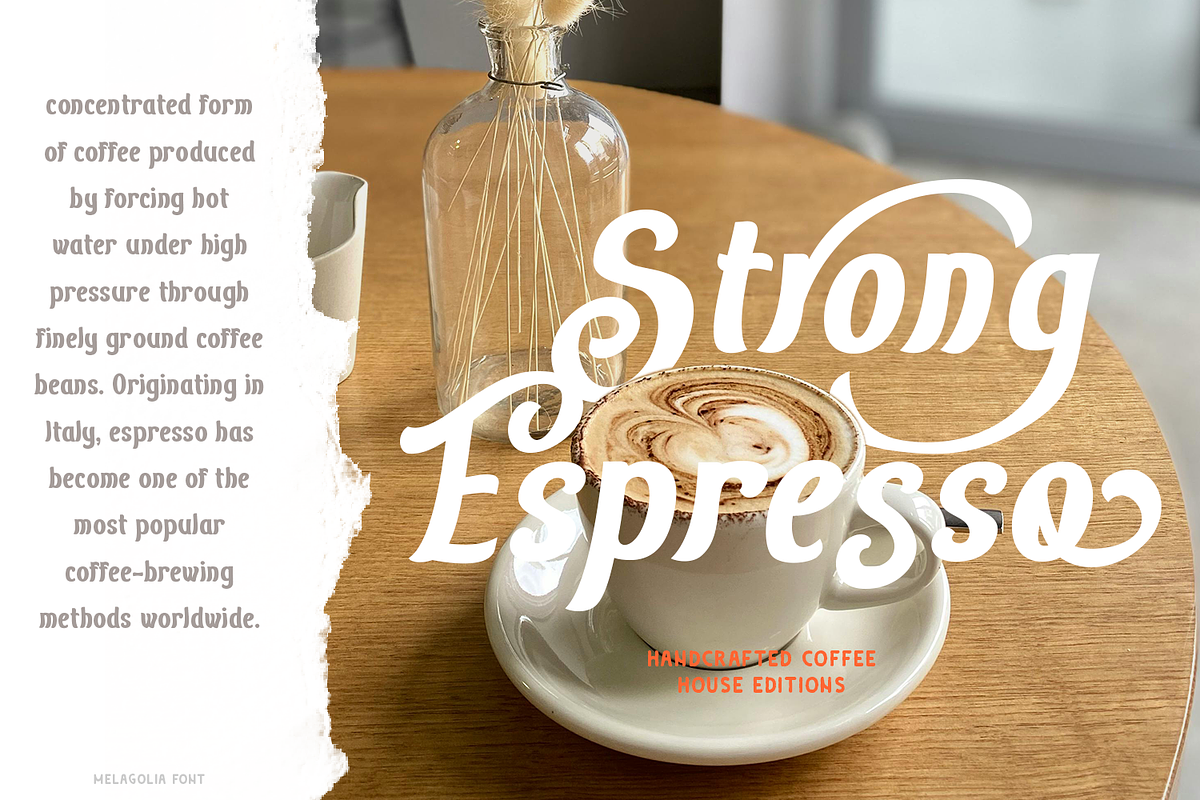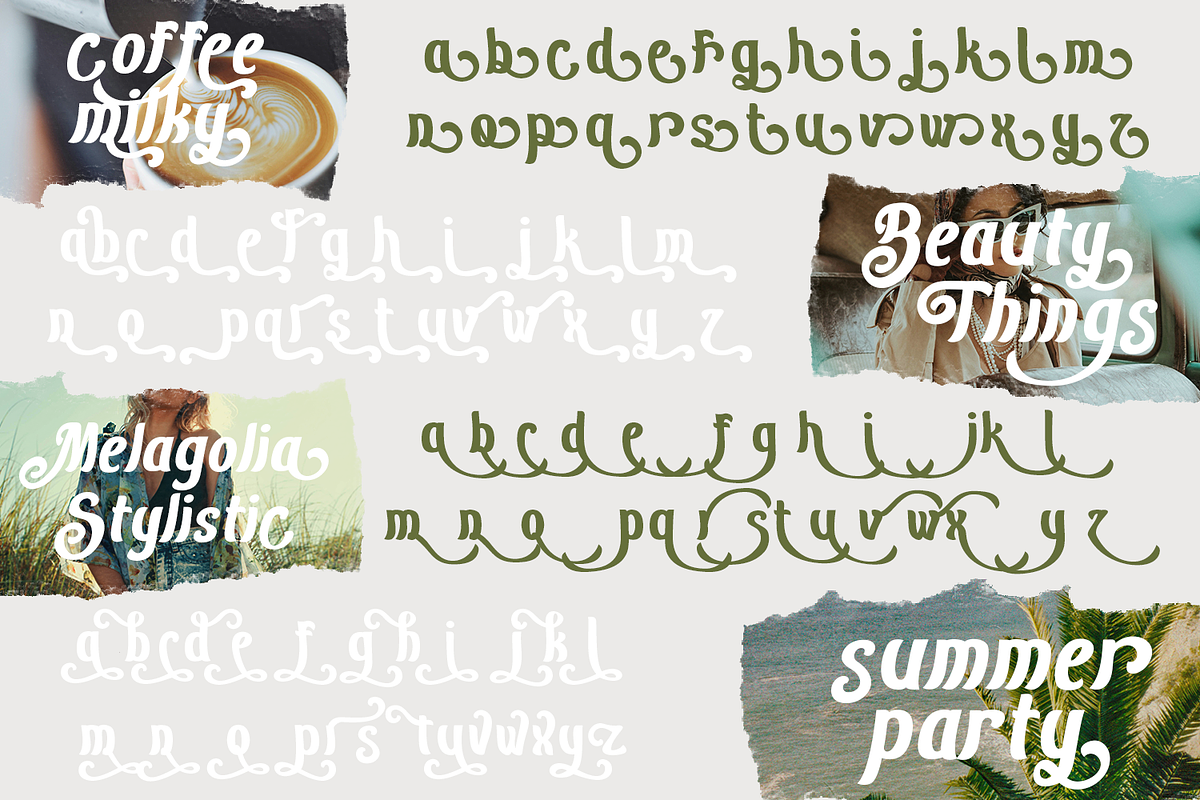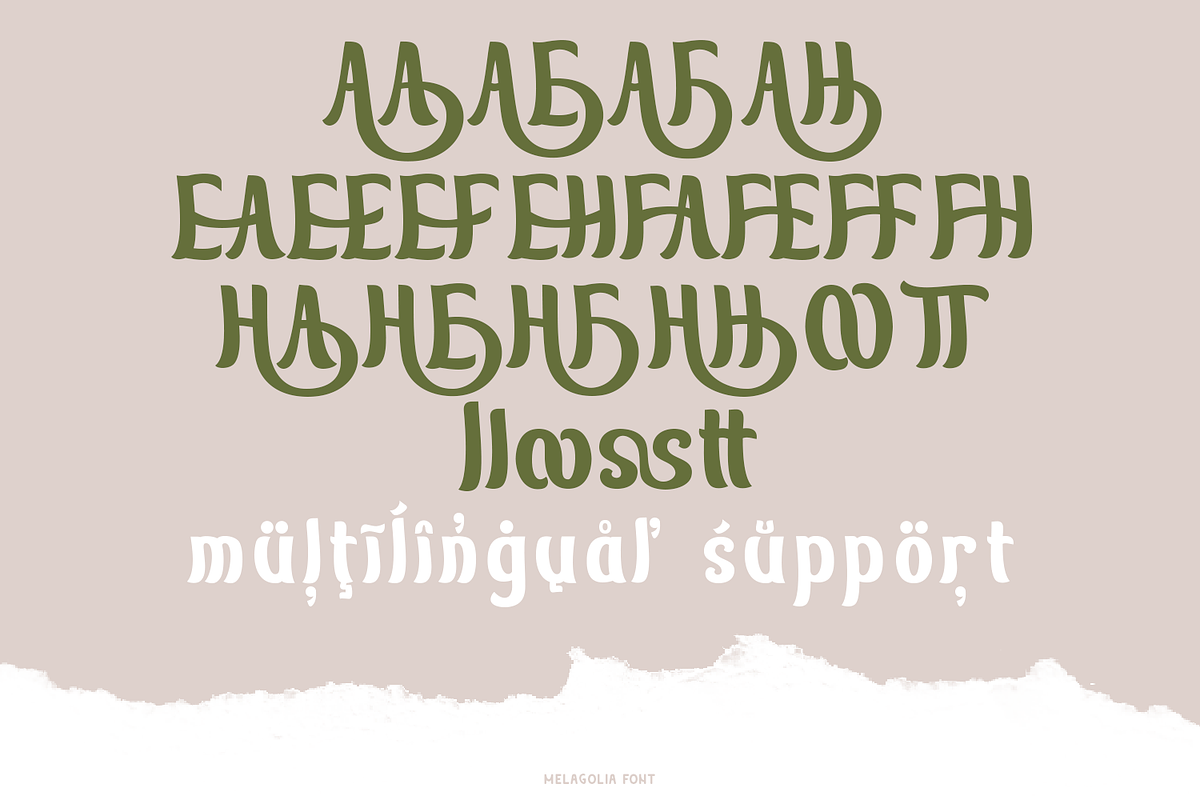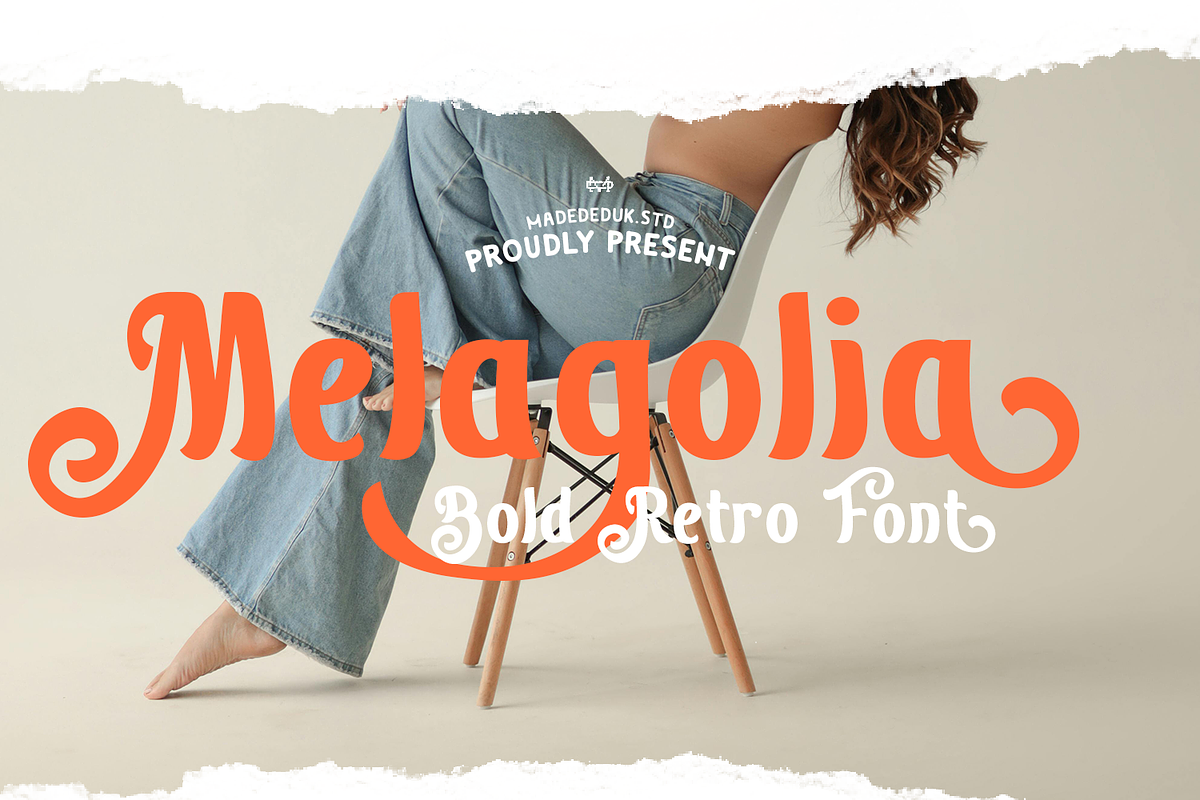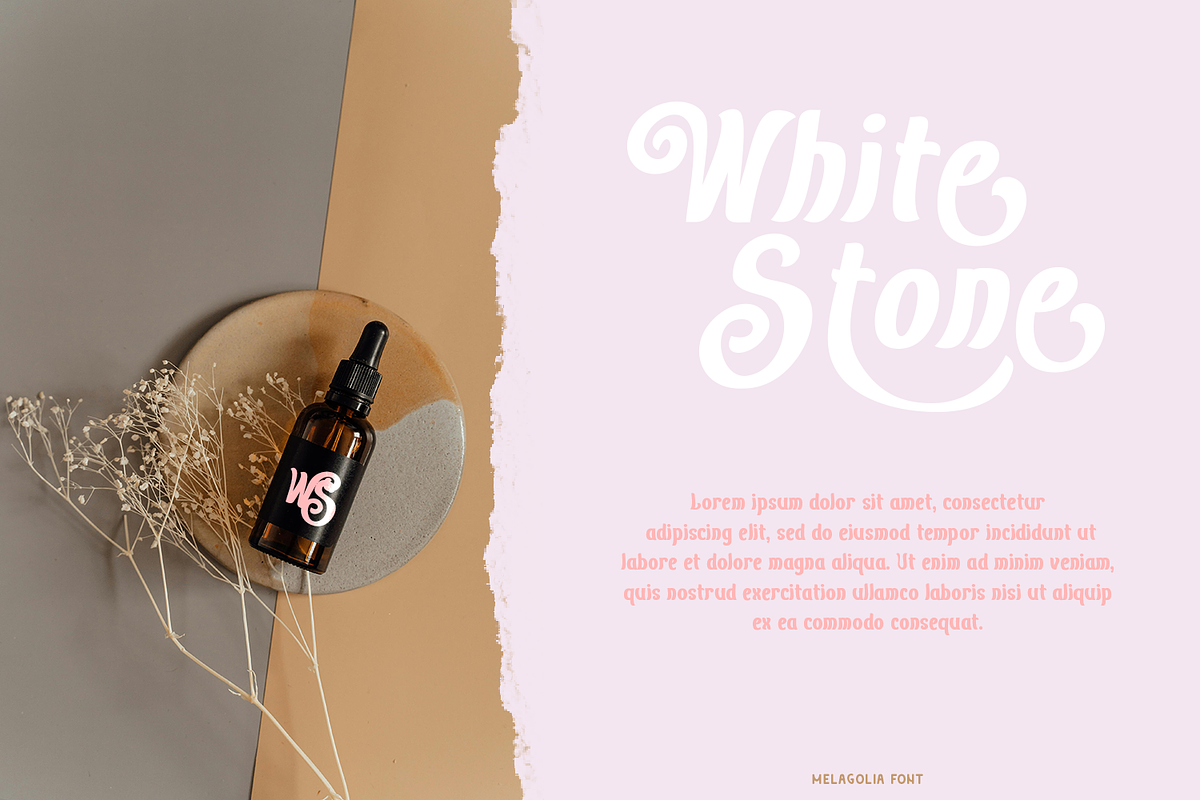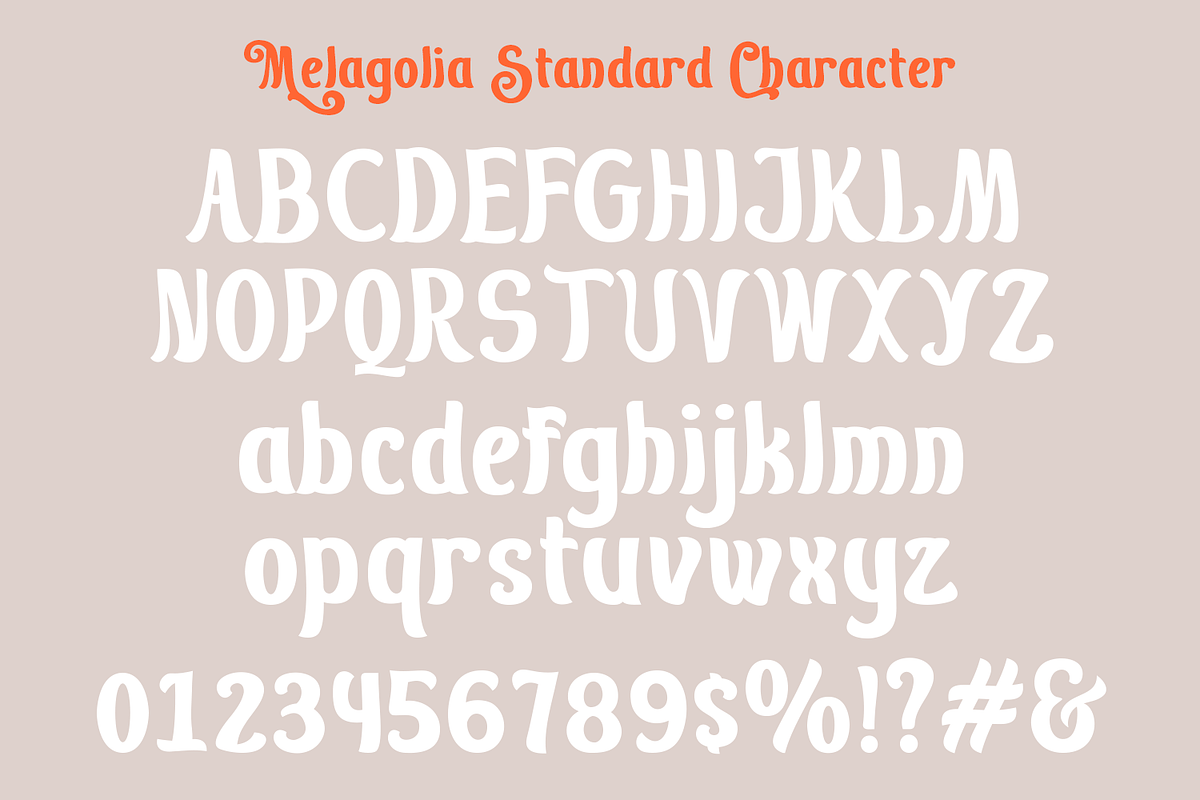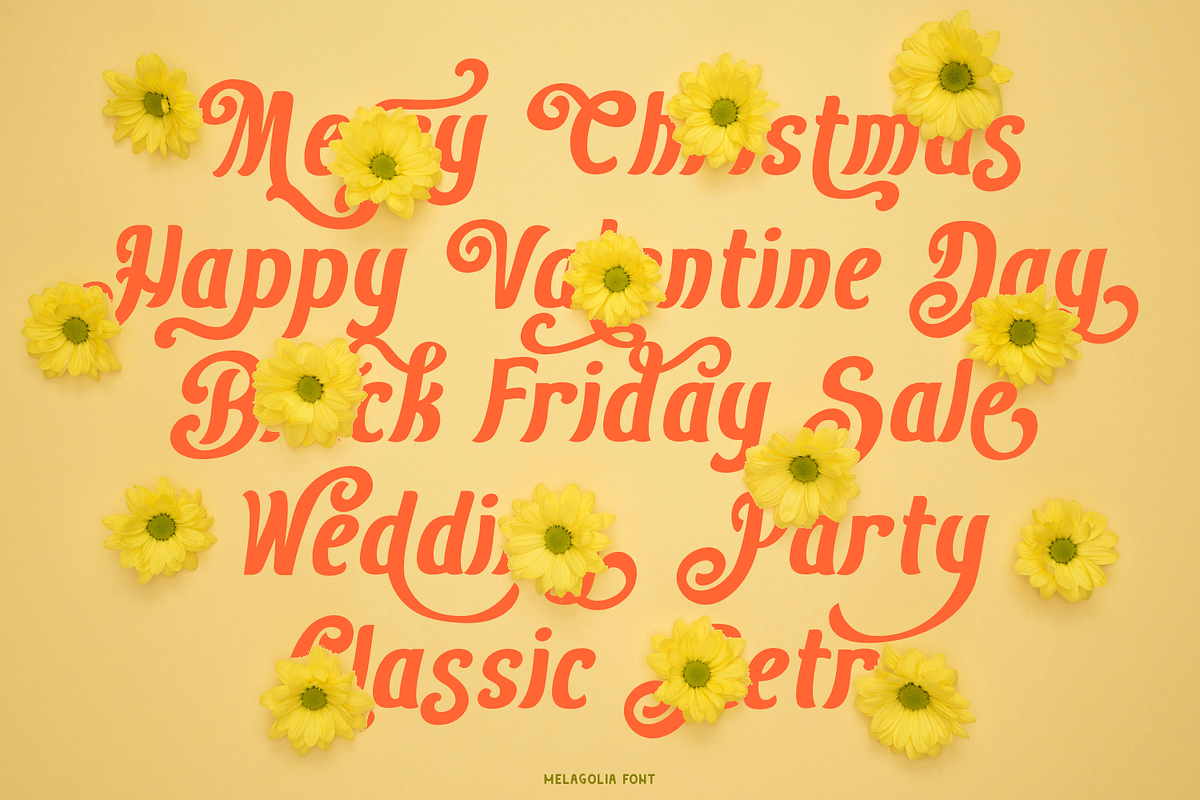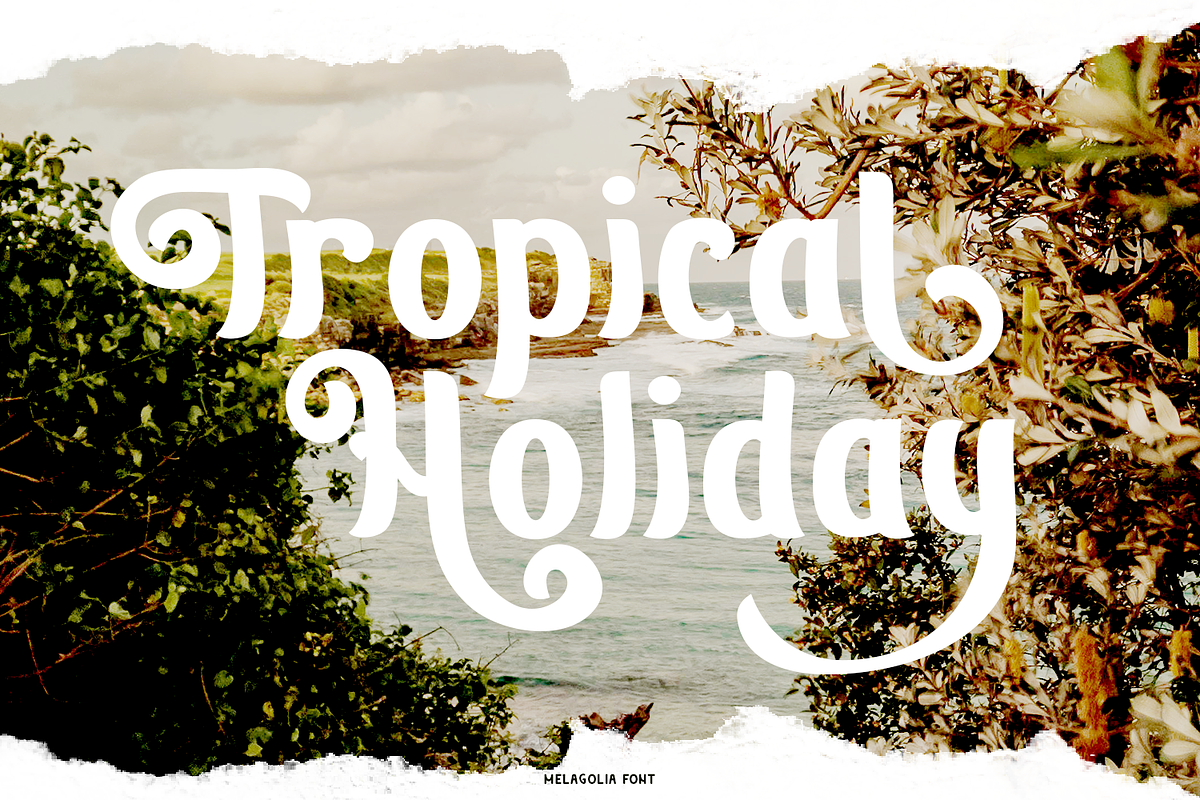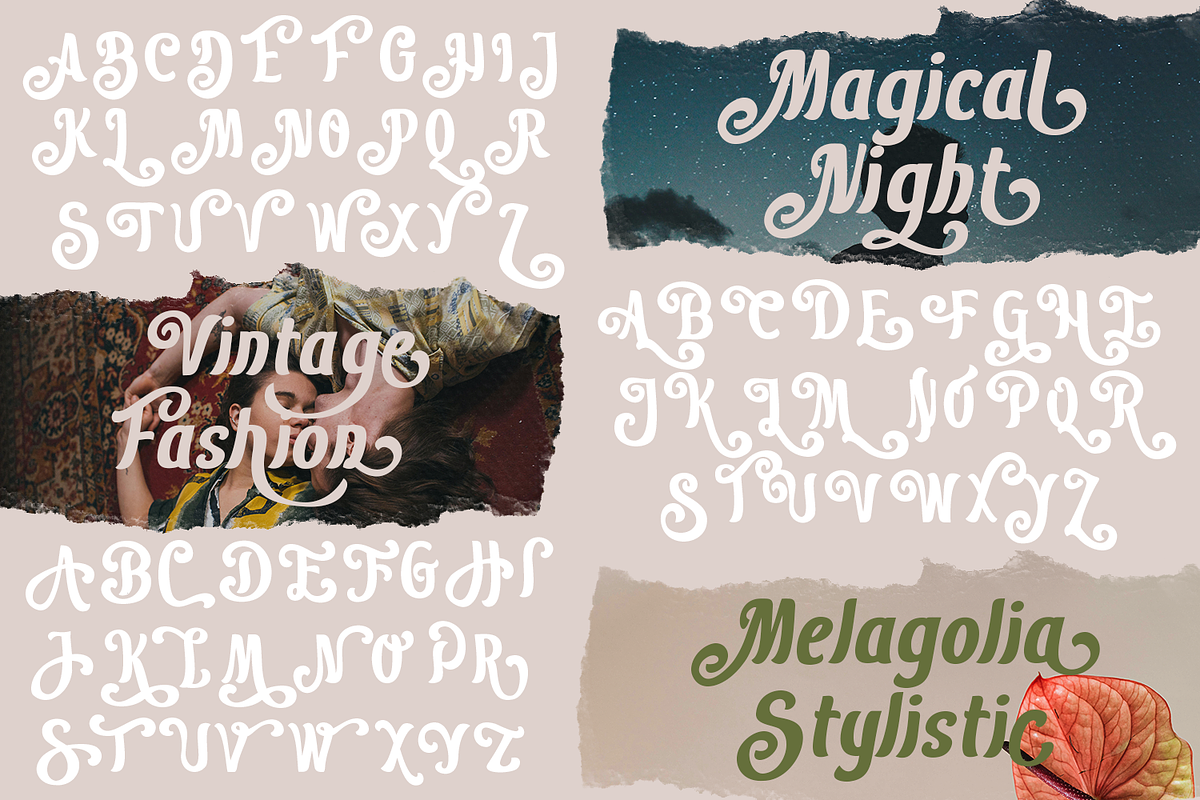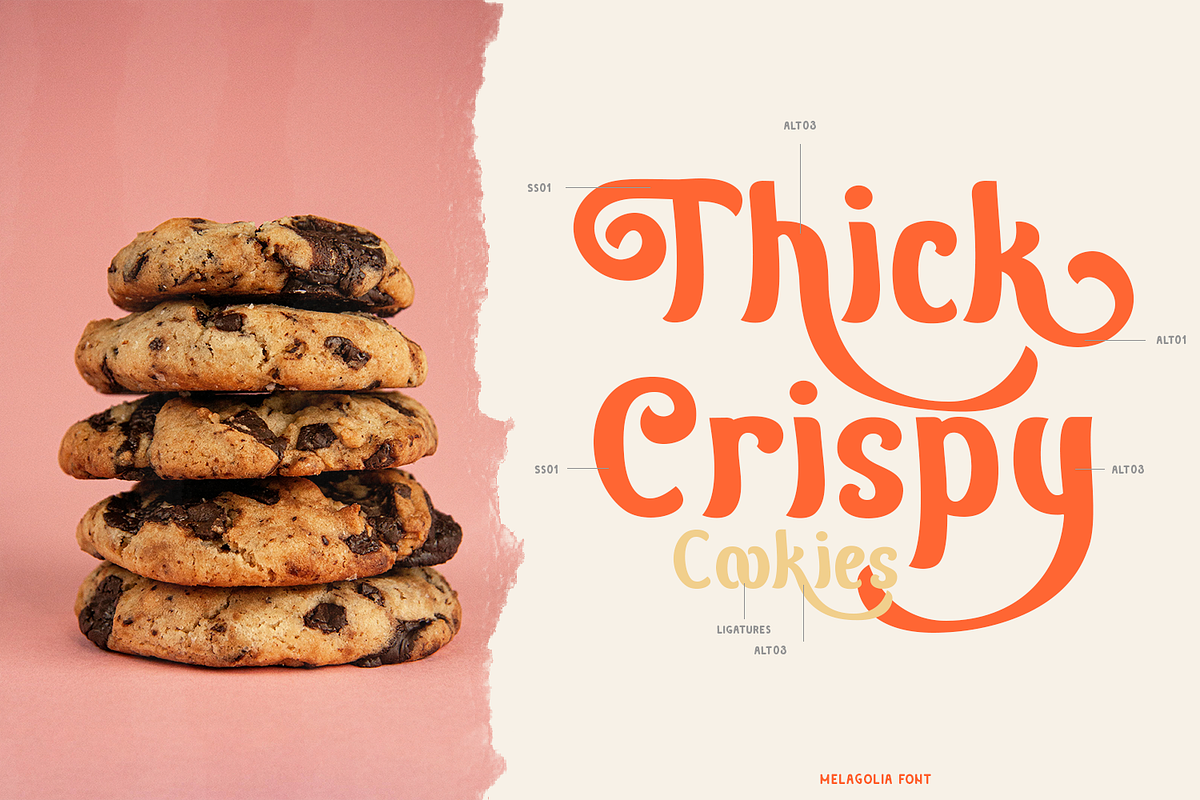
Melagolia Retro Script
Melagolia is a retro script font. Comes with curly style with much alternative and ligature. This font perfect for poster design, book covers, merchandise, fashion brands, advertising, magazines, album covers, wedding invitation and more.
- International Glyphs